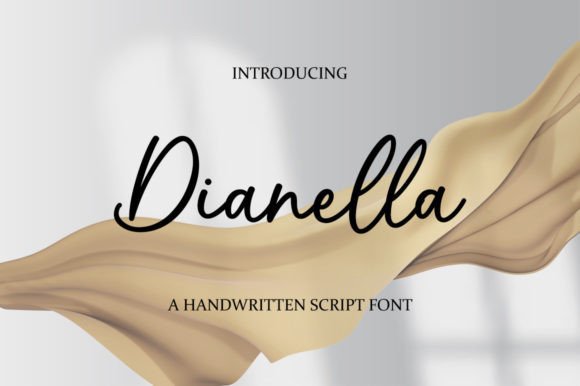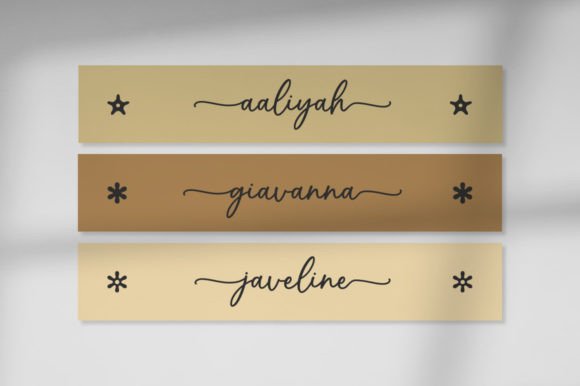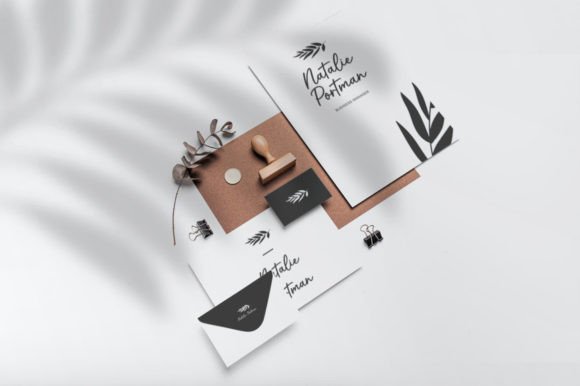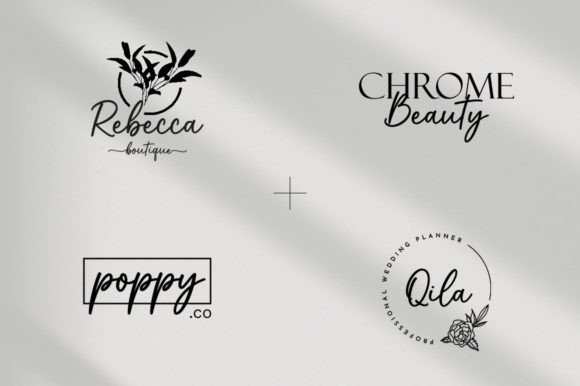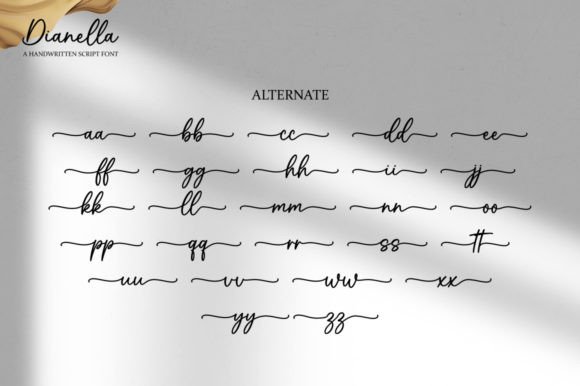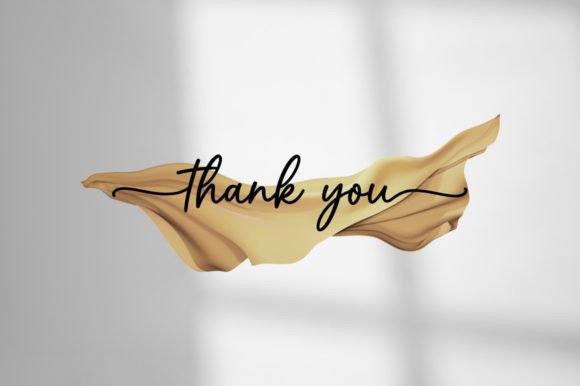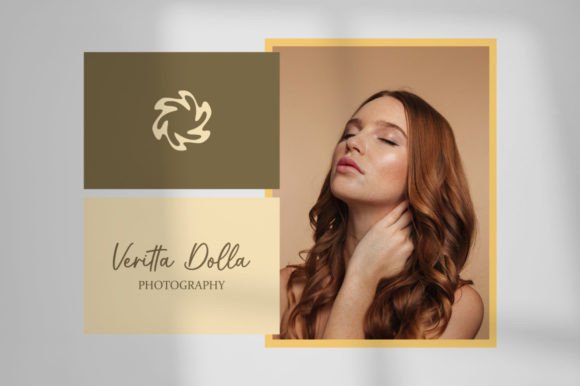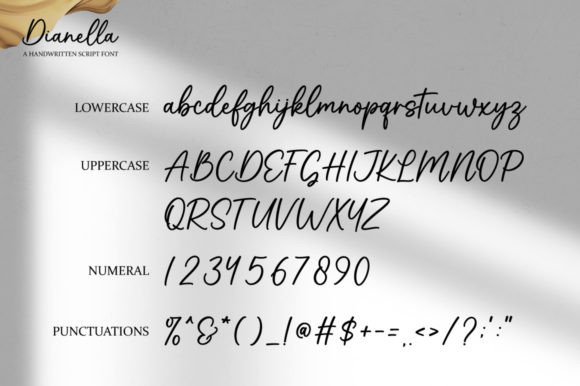
Dianella Font
About Dianella Font
Dianella is a charming and timeless handwritten font that offers an exquisite touch to your creative projects. With its graceful and classic style, it emerges as the ideal choice for crafting eye-catching logos, establishing memorable branding, and accentuating meaningful quotes. Dianella’s PUA encoding ensures effortless access to all the delightful glyphs and swashes, providing you with the freedom to infuse your designs with a personalized and elegant flourish.
This font possesses a remarkable ability to elevate your visual creations to a level of sophistication and appeal that is truly captivating. Whether you’re engaged in designing logos that leave a lasting impression, creating branding materials that exude uniqueness, or crafting quotes that inspire and resonate, Dianella is your trusted companion for infusing your work with a timeless and captivating allure.